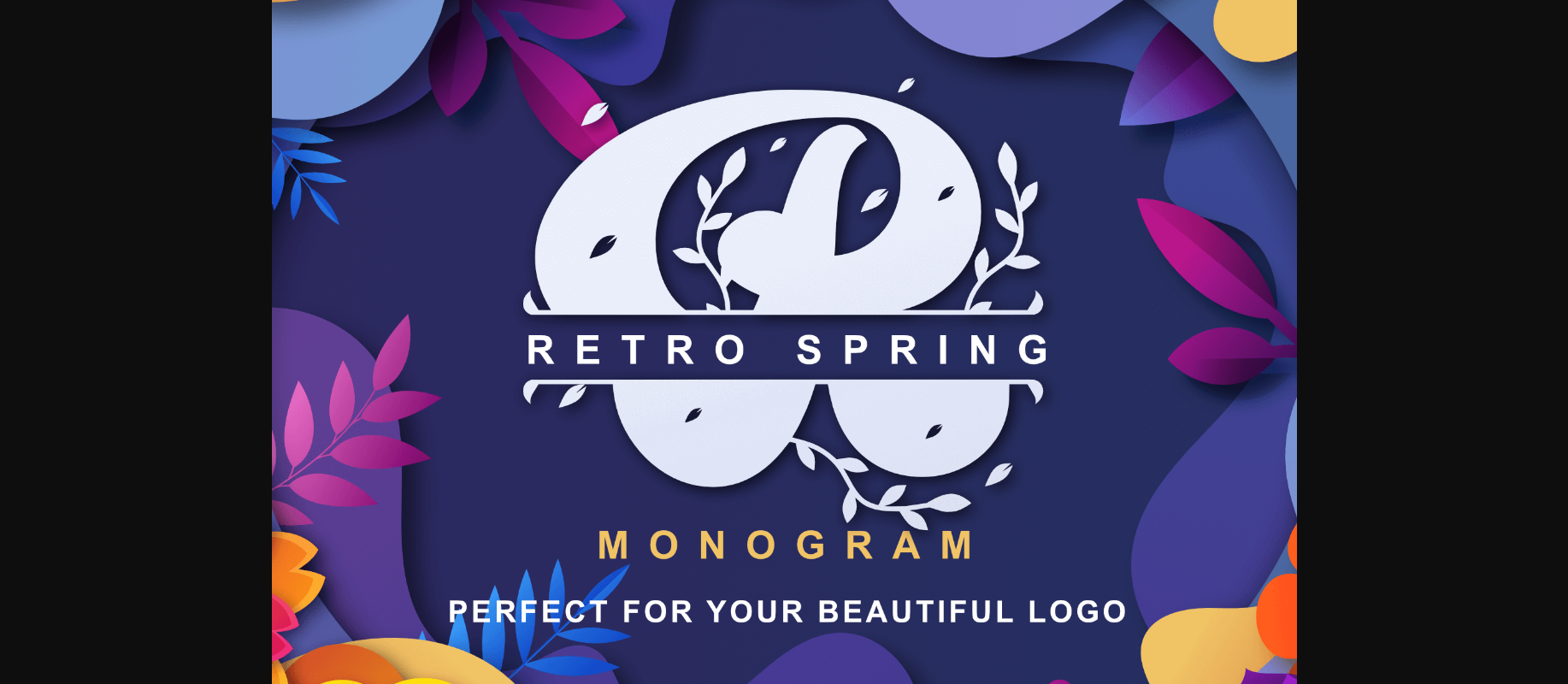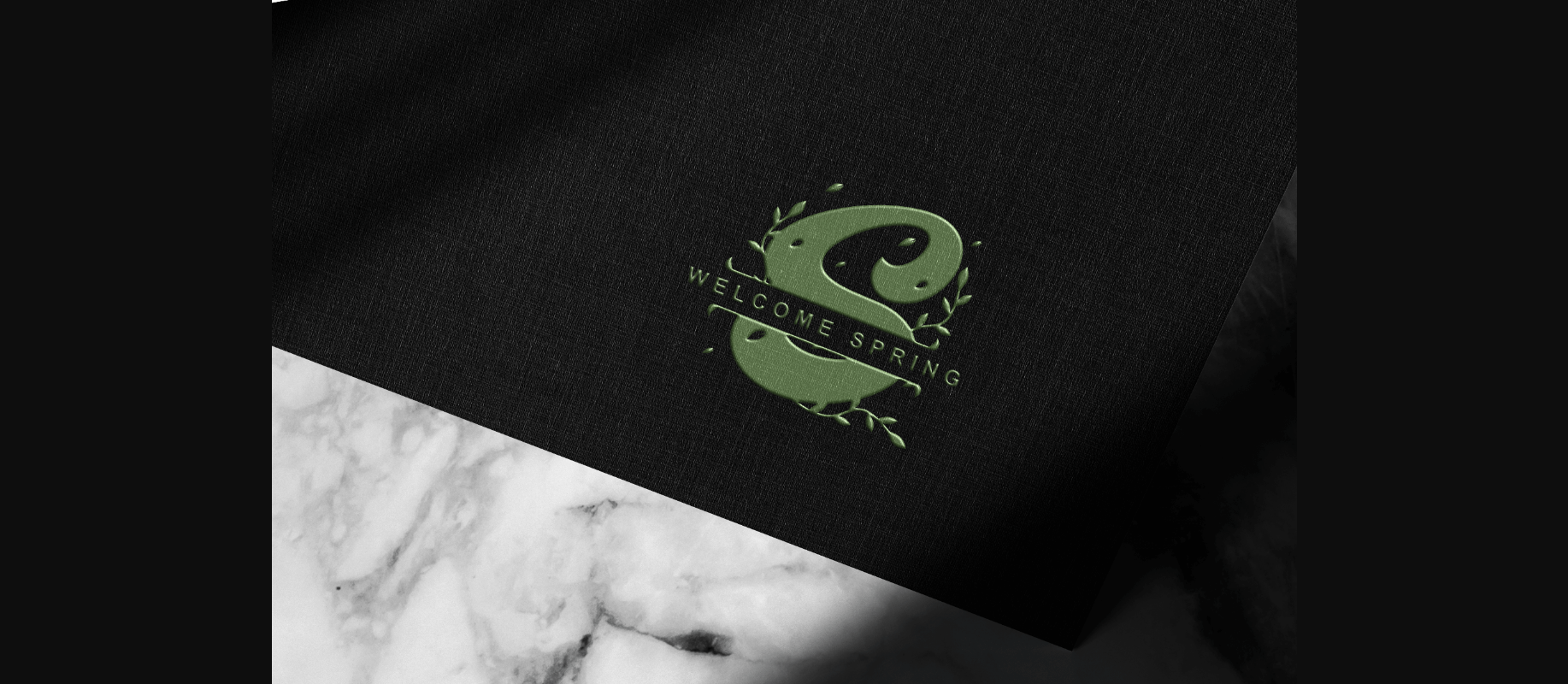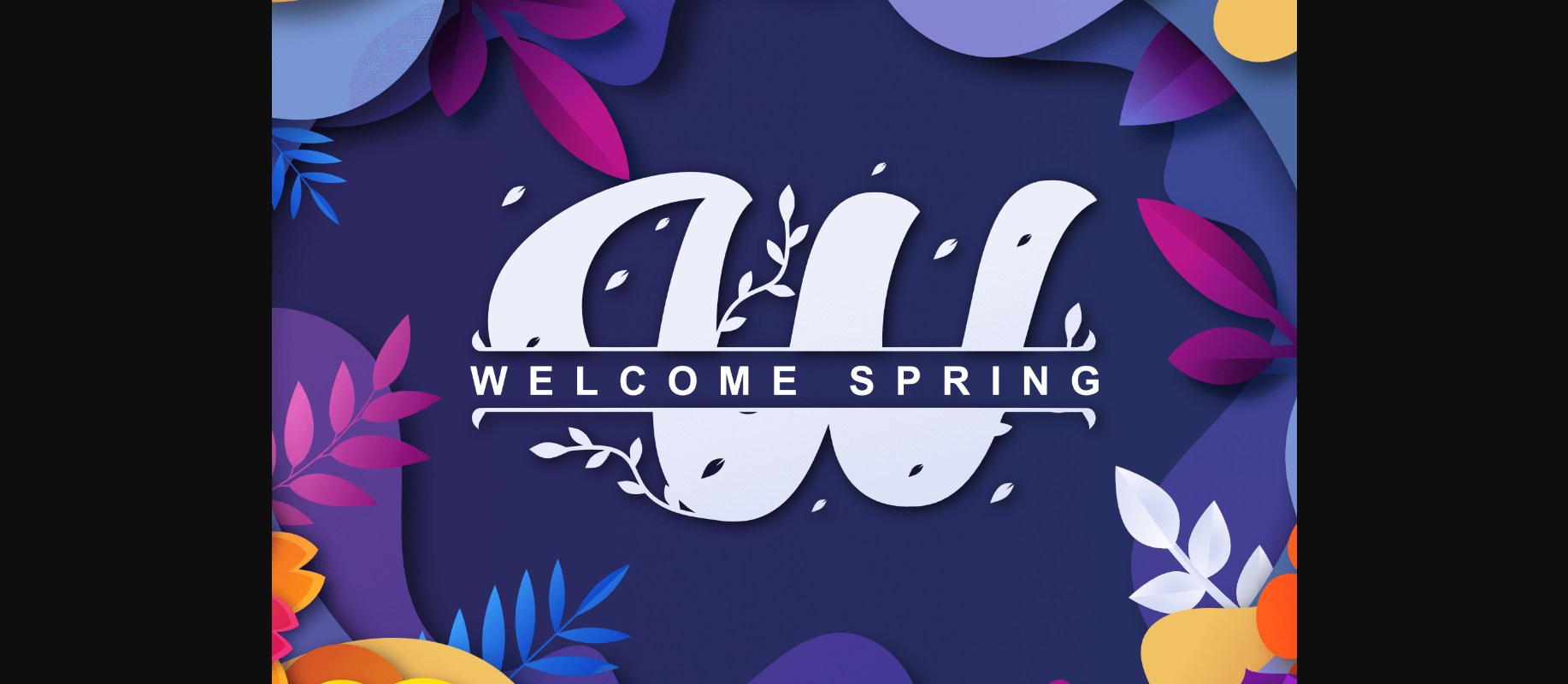
About Retro Spring Font
Retro Spring is a charming decorative font. Fall in love with its authentic feel and use it to create gorgeous wedding invitations, beautiful stationary art, eye-catching social media posts, and cute greeting cards.